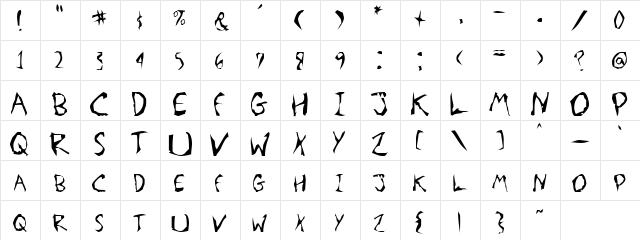
SinnerMovieCredits smallcaps
Design Context for SinnerMovieCredits Typeface
SinnerMovieCredits is a composed and adaptable typeface that performs quietly and consistently across a wide range of design contexts.